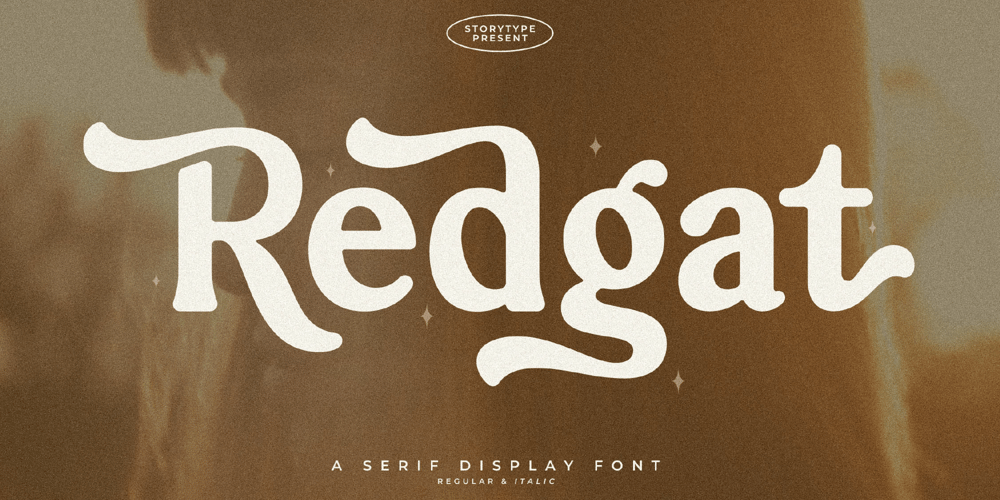
Redgat Font Family was designed by Heru Utama Putra and published by Letterena Studios. Redgat contains 2 styles and family package options. Redgat is a display serif with a vintage modern touch. This lovely typeface is perfect for an elegant & luxurious logo, book or movie title design, fashion brand, magazine, clothes, lettering, quotes, and so much more.